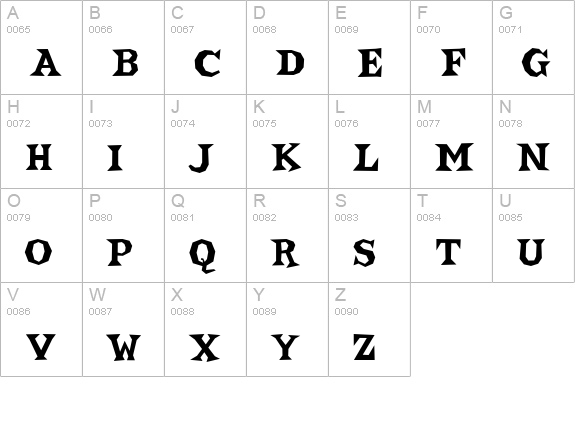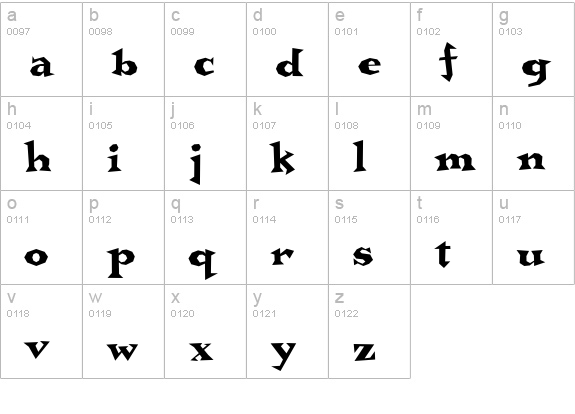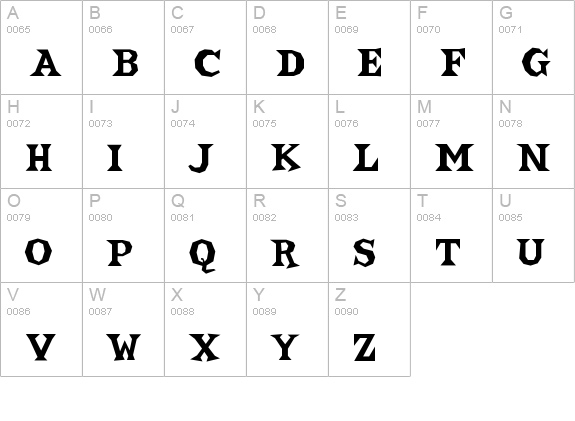
Bonehead Font Details
Bonehead font is a bold and eye-catching typeface that exudes a sense of strength and confidence. Its sharp, angular design gives it a unique and edgy look, making it perfect for projects that require a touch of boldness. The font features strong, thick lines that make a statement and demand attention. Bonehead font is ideal for creating impactful headlines, posters, logos, and branding materials. Its versatility allows it to be used in a variety of design projects, from modern and contemporary to grunge and urban styles. Whether you're designing a music festival poster or a skateboard brand logo, Bonehead font will add a touch of attitude and personality to your work. The best part? Bonehead font is completely free to download at FontsMarket.com. So go ahead and grab this striking typeface to elevate your designs and make a bold statement today!